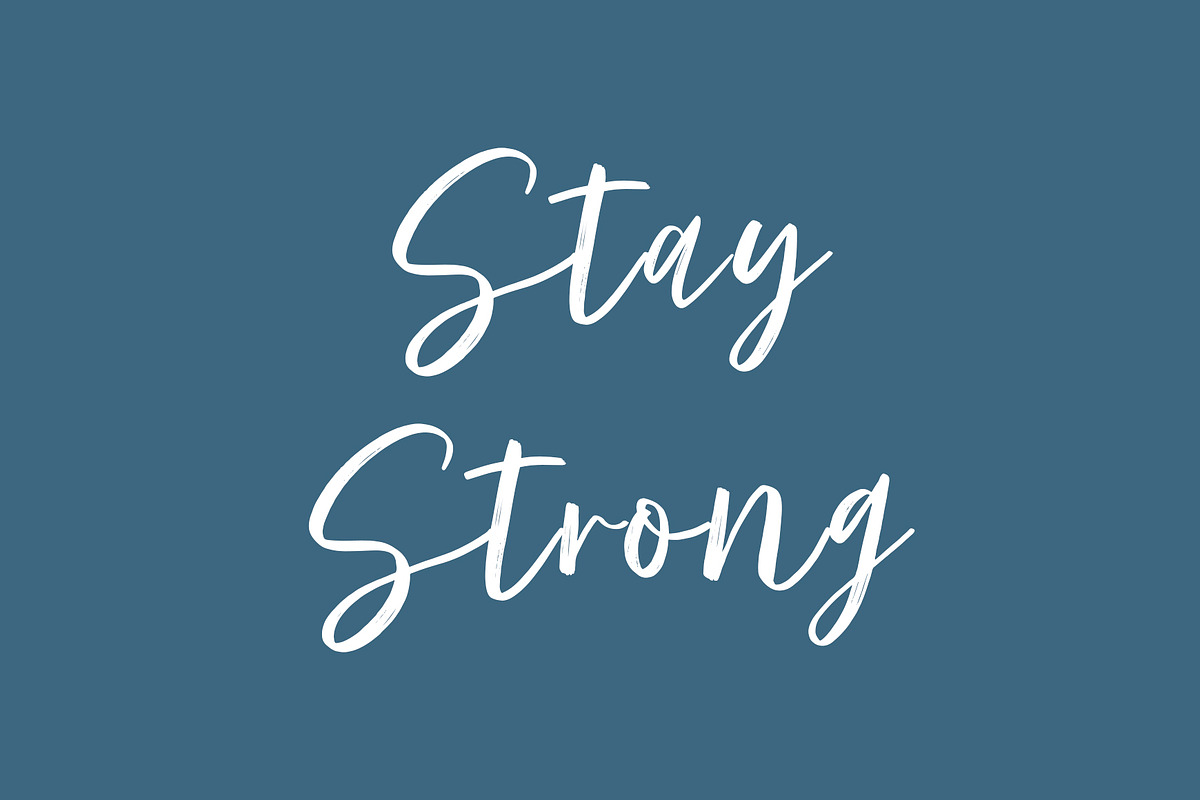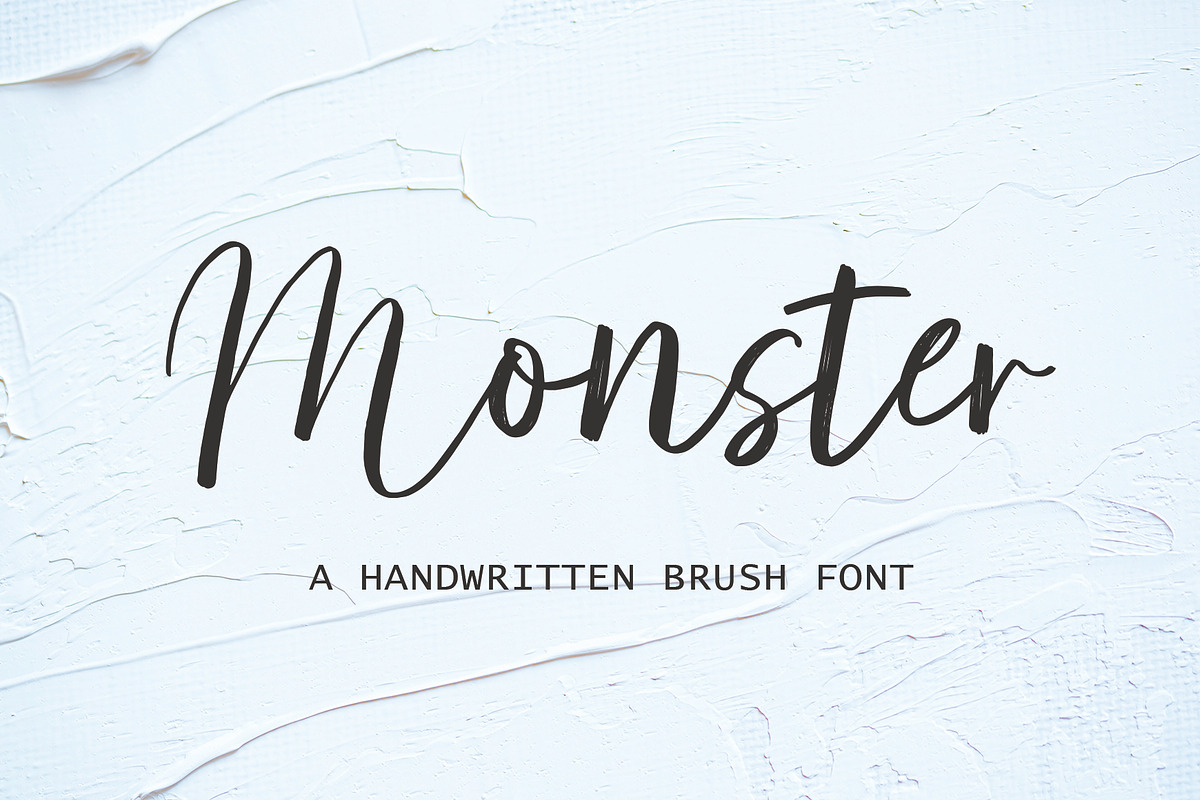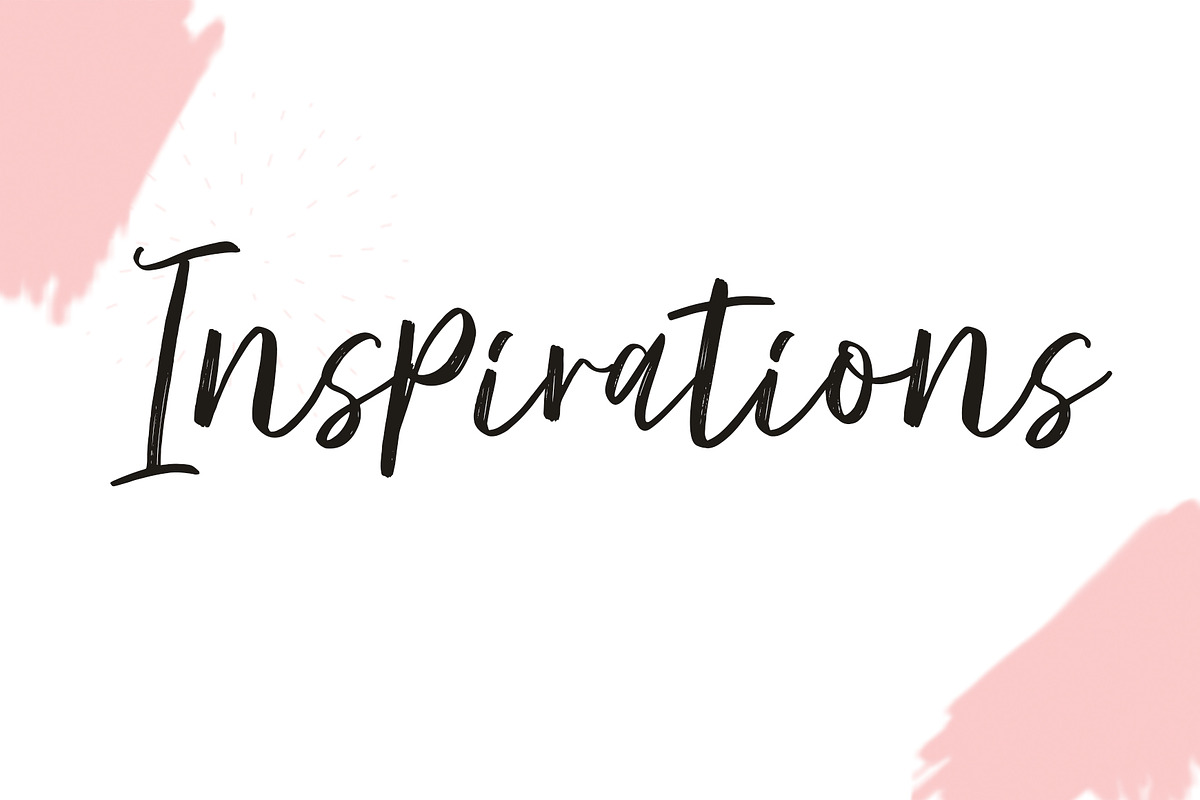
Monster | Modern Script for Branding
Monster Handwritten Brush Font is a stylish and expressive handwritten script typeface with a natural brush-lettered feel. Perfect for logos, branding, invitations, quotes, social media graphics, posters, packaging, apparel, photography, and other creative projects. Its bold yet elegant handwritten style adds a personal and artistic touch to any design.
Monster is a versatile choice for designers looking for a modern, authentic handwritten brush font with a beautiful handmade character.